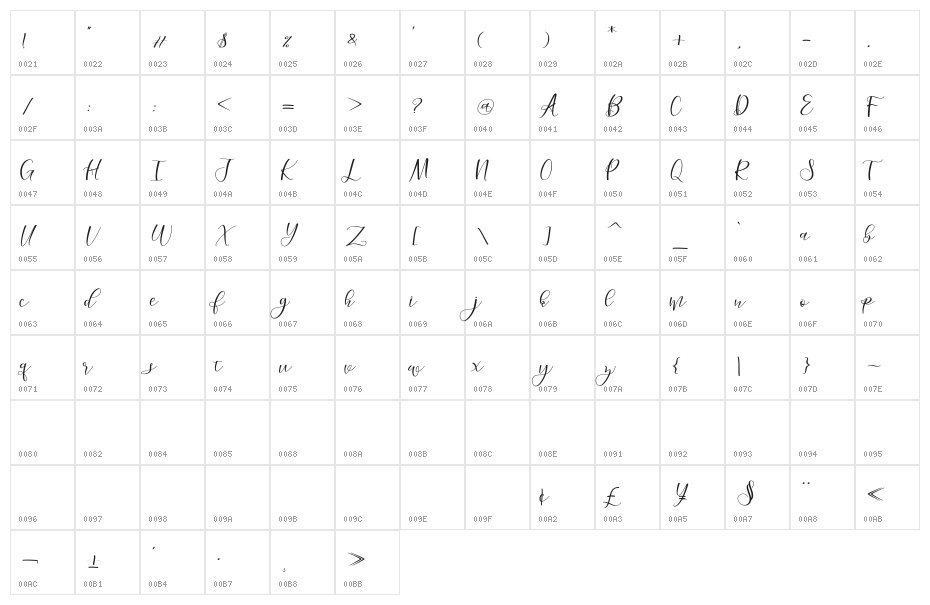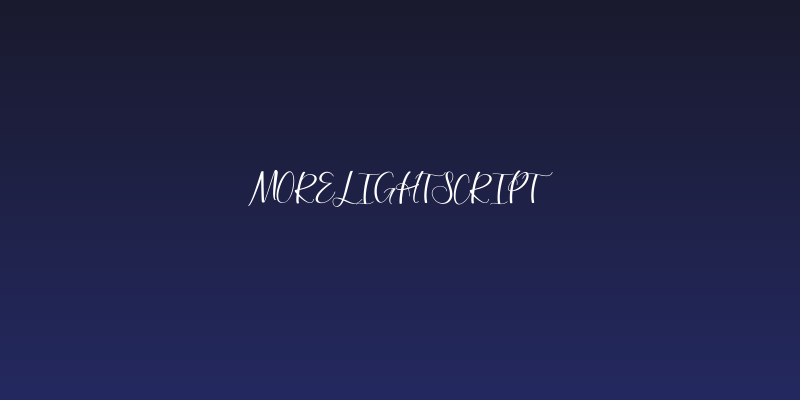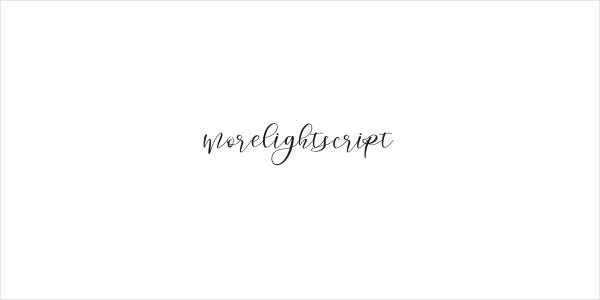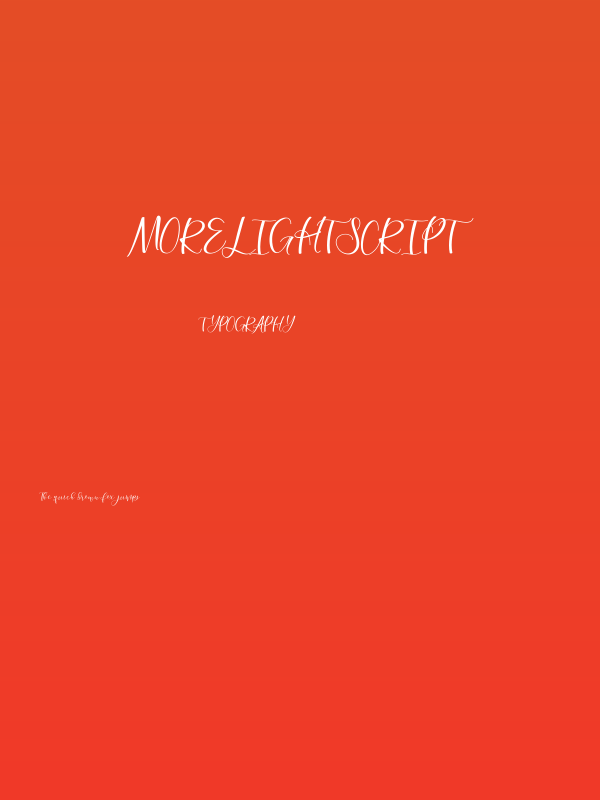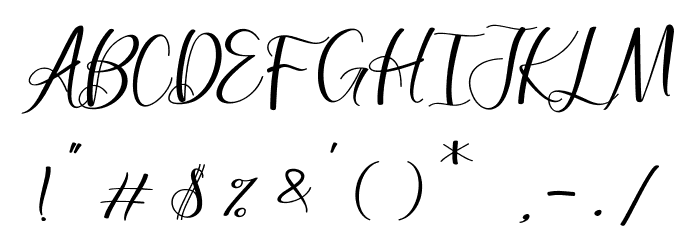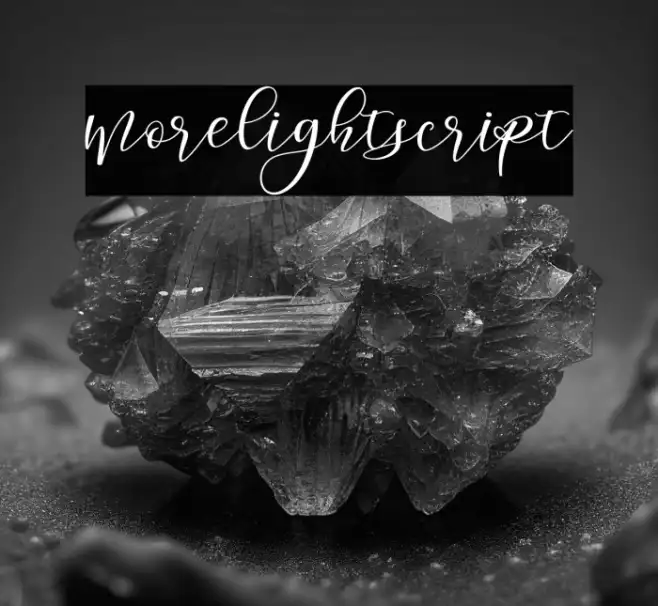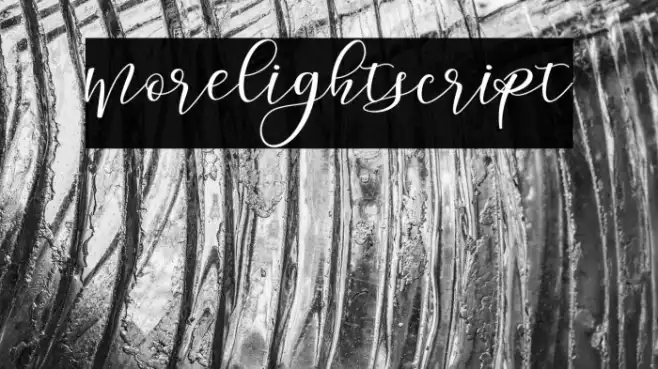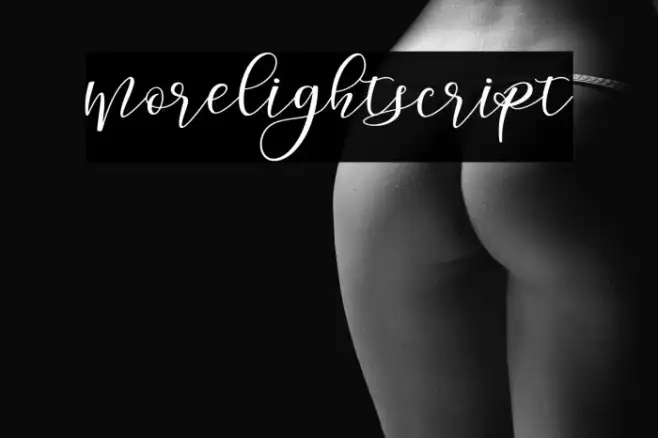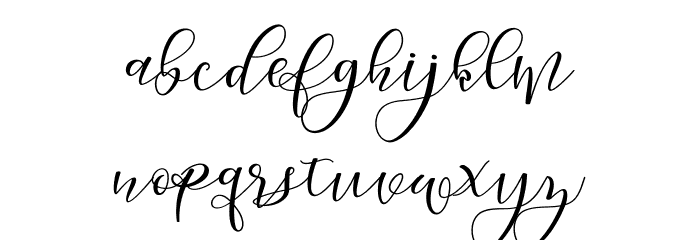
morelightscript Font
morelightscript Description
This elegant script font features a flowing, cursive style with intricate loops and swashes, giving it a sophisticated and artistic appearance. The uppercase letters are tall and graceful, while the lowercase letters maintain a consistent flow with delicate connections. The font exhibits a playful yet refined character, making it suitable for creative and formal applications. The numerals and special characters are designed to complement the overall aesthetic, maintaining the same fluidity and elegance. This font is ideal for projects that require a touch of class and creativity.
| Use Case | Headlines, Invitations, Branding |
| Proposed Projects | Wedding invitations, greeting cards, branding, and elegant packaging. |